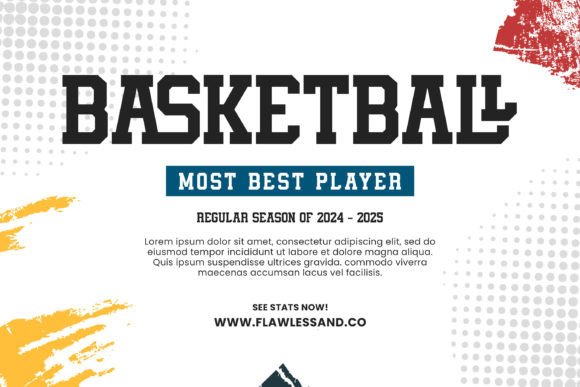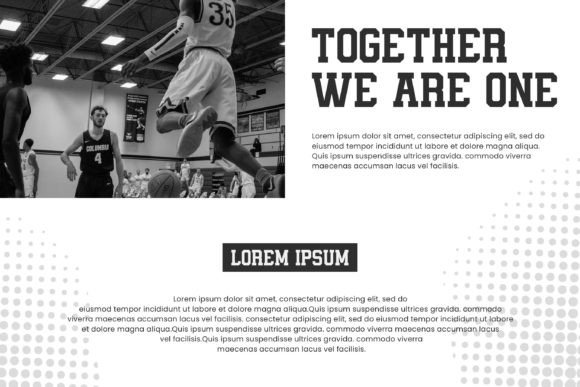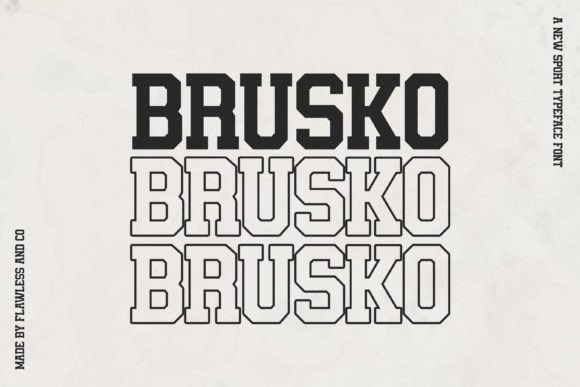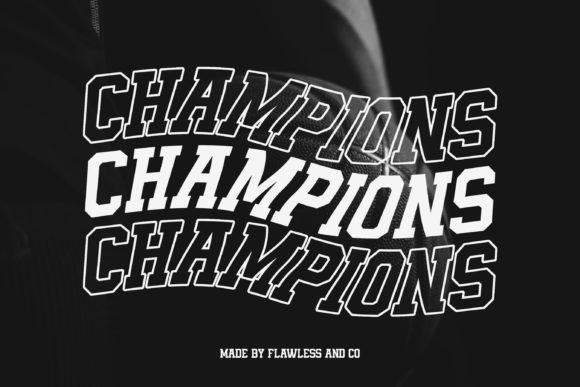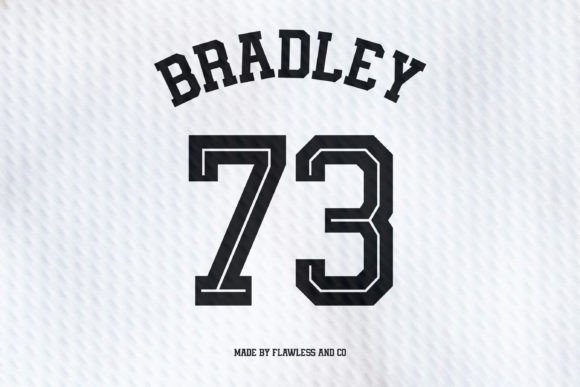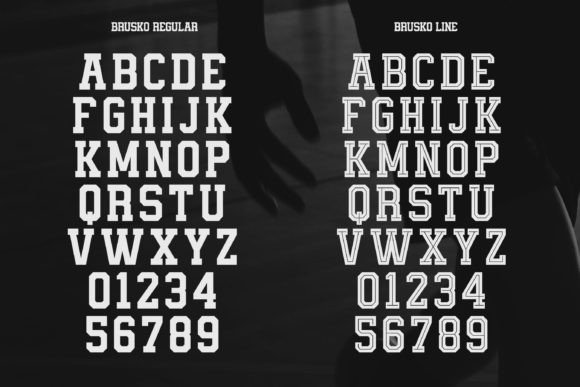
Introducing Brusko: The Ultimate Sports Basketball Font
In the world of sports design, a font can make all the difference in capturing the essence and energy of a game. For basketball enthusiasts and designers alike, we’ve created Brusko – a bold, athletic, and dynamic sports basketball font that embodies the excitement and competition of the court. Whether you’re working on sports branding, team jerseys, posters, or basketball events, Brusko is the perfect choice to elevate your designs with a powerful and energetic presence.
The Inspiration Behind Brusko
Basketball is a game of speed, agility, and strength, where every second counts and every move is a testament to the player’s skill and determination. The font Brusko was inspired by the fast-paced action on the court, the competitive spirit of the players, and the electric atmosphere of the spectators. Our goal was to create a typeface that not only reflects the dynamic nature of basketball but also adds a modern and stylish touch to any design project.
Key Features of Brusko Font
- Bold and Athletic Design: Brusko’s letterforms are designed to be bold and athletic, making it perfect for headlines, jerseys, and any design that requires a strong and impactful look.
- Dynamic Energy: The font’s unique style captures the dynamic energy of basketball, adding a sense of movement and excitement to your designs.
- Versatility: Brusko is not just limited to basketball; its versatile design makes it suitable for various sports and design projects, including football, volleyball, and more.
- Ease of Use: Brusko is easy to read, even at smaller sizes, making it ideal for a wide range of applications, from apparel to digital media.
Uses of Brusko Font
The possibilities with Brusko are endless. Here are some of the best ways to use this dynamic sports font:
- Sports Branding: Create a lasting impression with your sports brand by using Brusko for logos, merchandise, and promotional materials.
- Team Jerseys: Give your team’s jerseys a professional and cohesive look with Brusko’s bold and athletic design.
- Posters and Flyers: Stand out with eye-catching posters and flyers for basketball events, tournaments, and sports-related activities.
- Social Media Graphics: Elevate your social media presence with engaging graphics and posts that showcase the energy and excitement of basketball.
- Website Headers: Add a professional touch to your sports website or blog with Brusko’s bold and dynamic headers.
Why Choose Brusko?
In a sea of generic fonts, Brusko stands out with its unique blend of style, energy, and versatility. Here are a few reasons why Brusko should be your go-to font for sports-related designs:
- Unique Design: Brusko’s design is tailored specifically for sports, making it a standout choice for designers looking for something fresh and exciting.
- High-Quality: Crafted with attention to detail, Brusko offers high-quality design elements that will elevate your projects.
Brusko is more than just a font – it’s a design statement that captures the essence of basketball and sports in general. Its bold, athletic, and dynamic design makes it the perfect choice for designers and crafters looking to add a touch of excitement and energy to their projects. Whether you’re working on a professional sports brand or a personal design project, Brusko is sure to deliver a powerful and energetic presence that stands out.